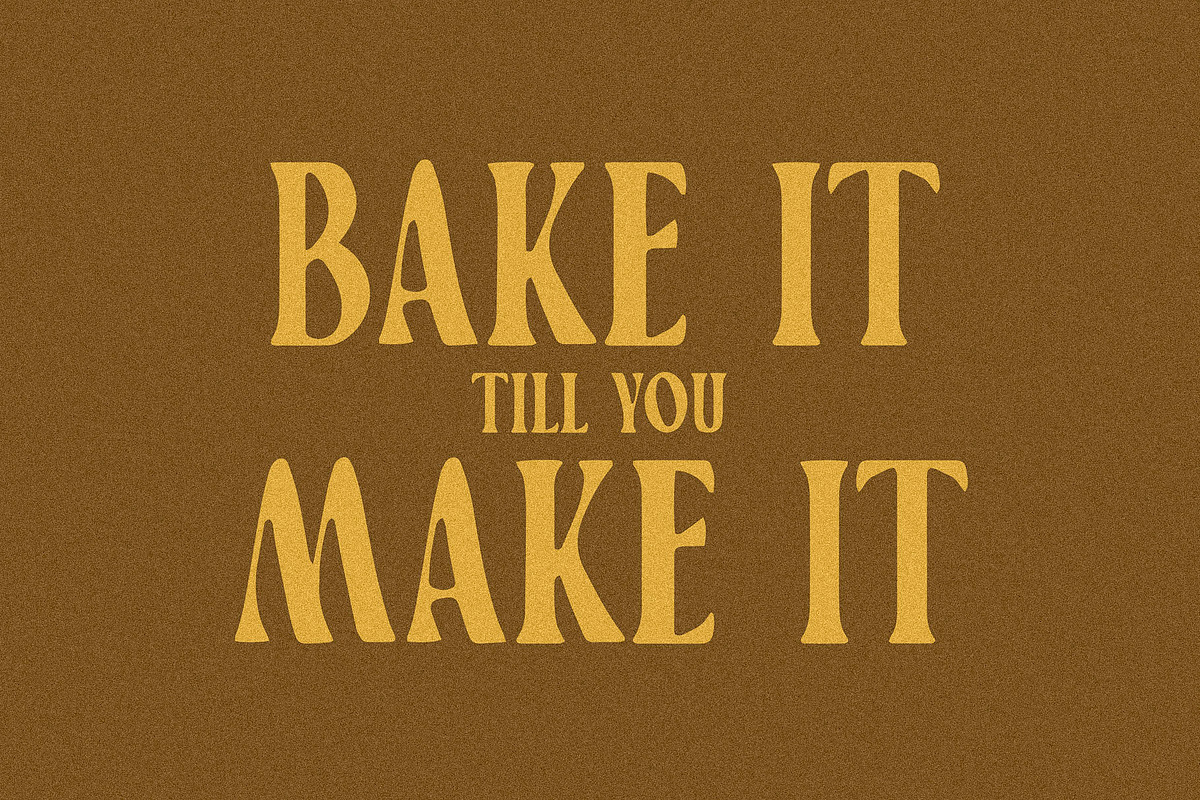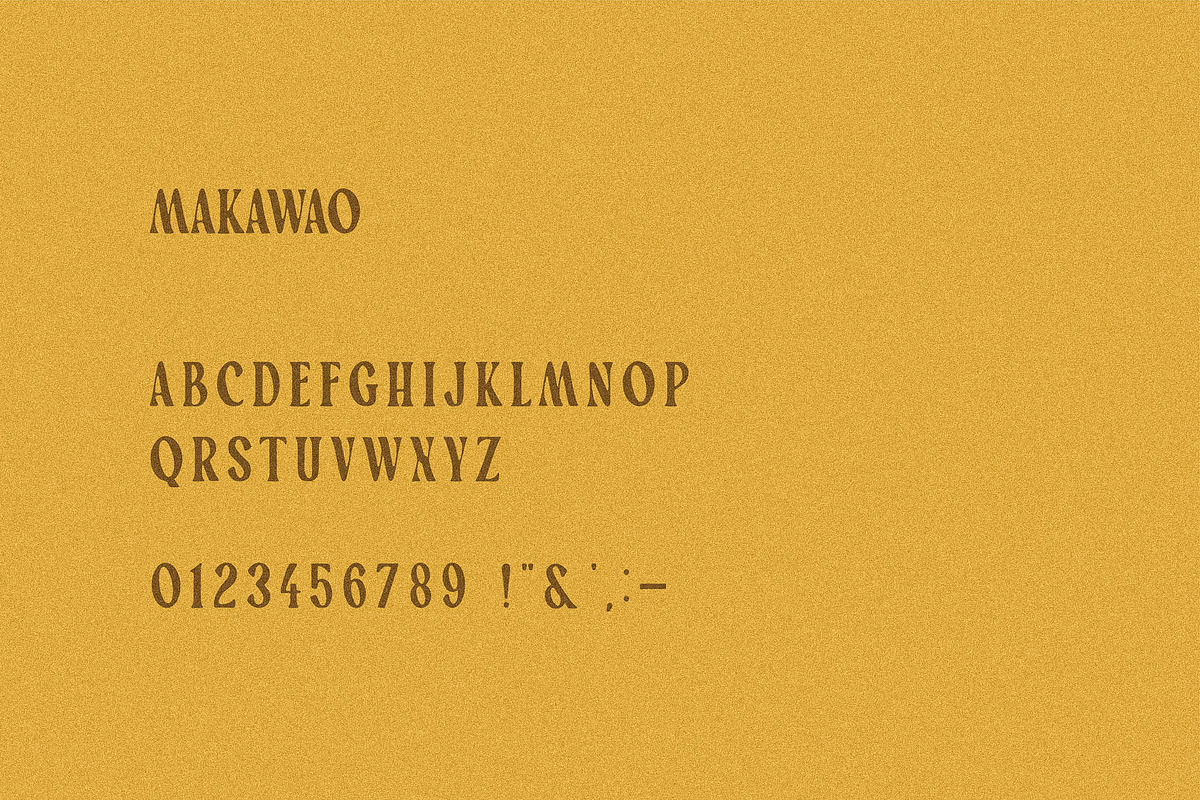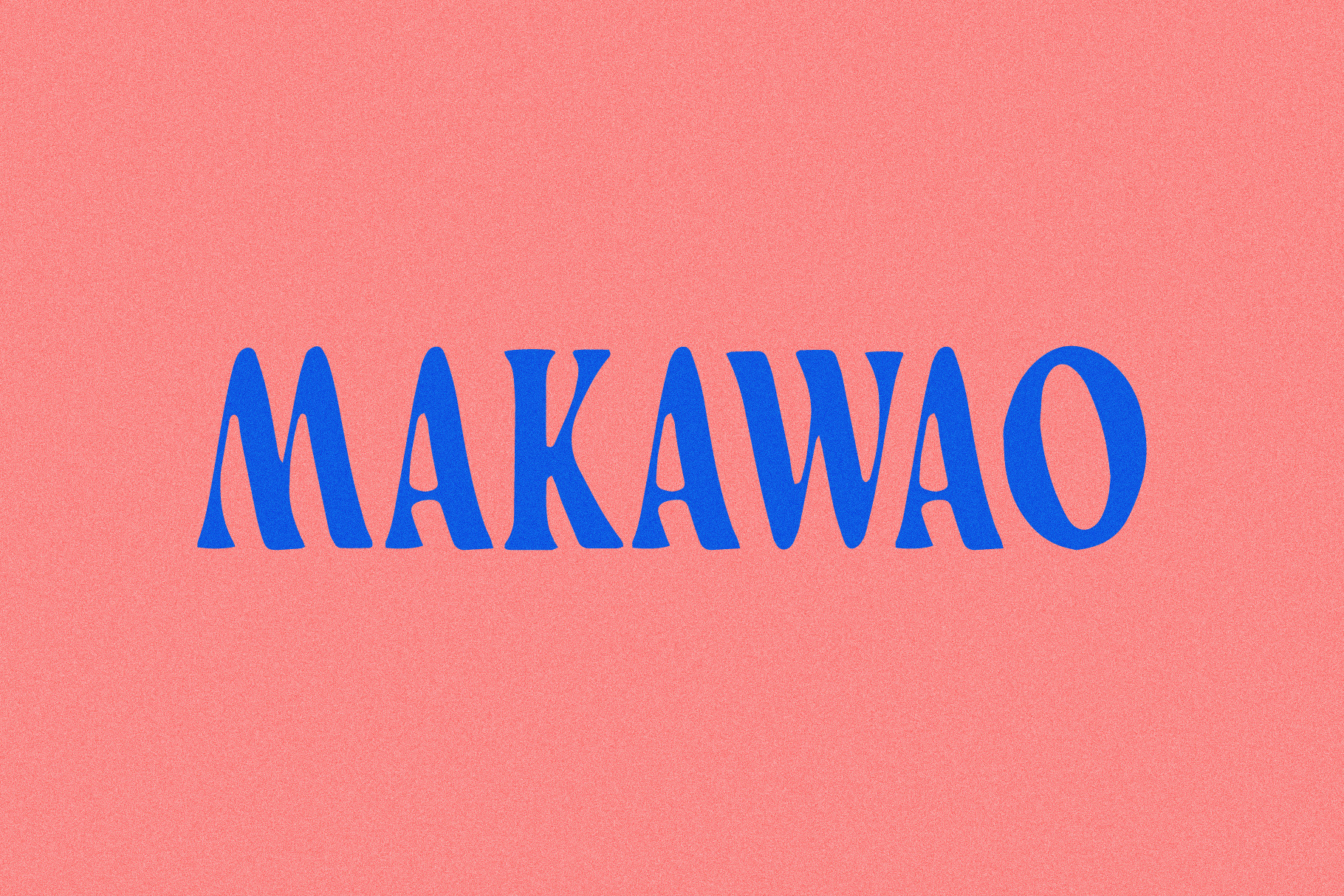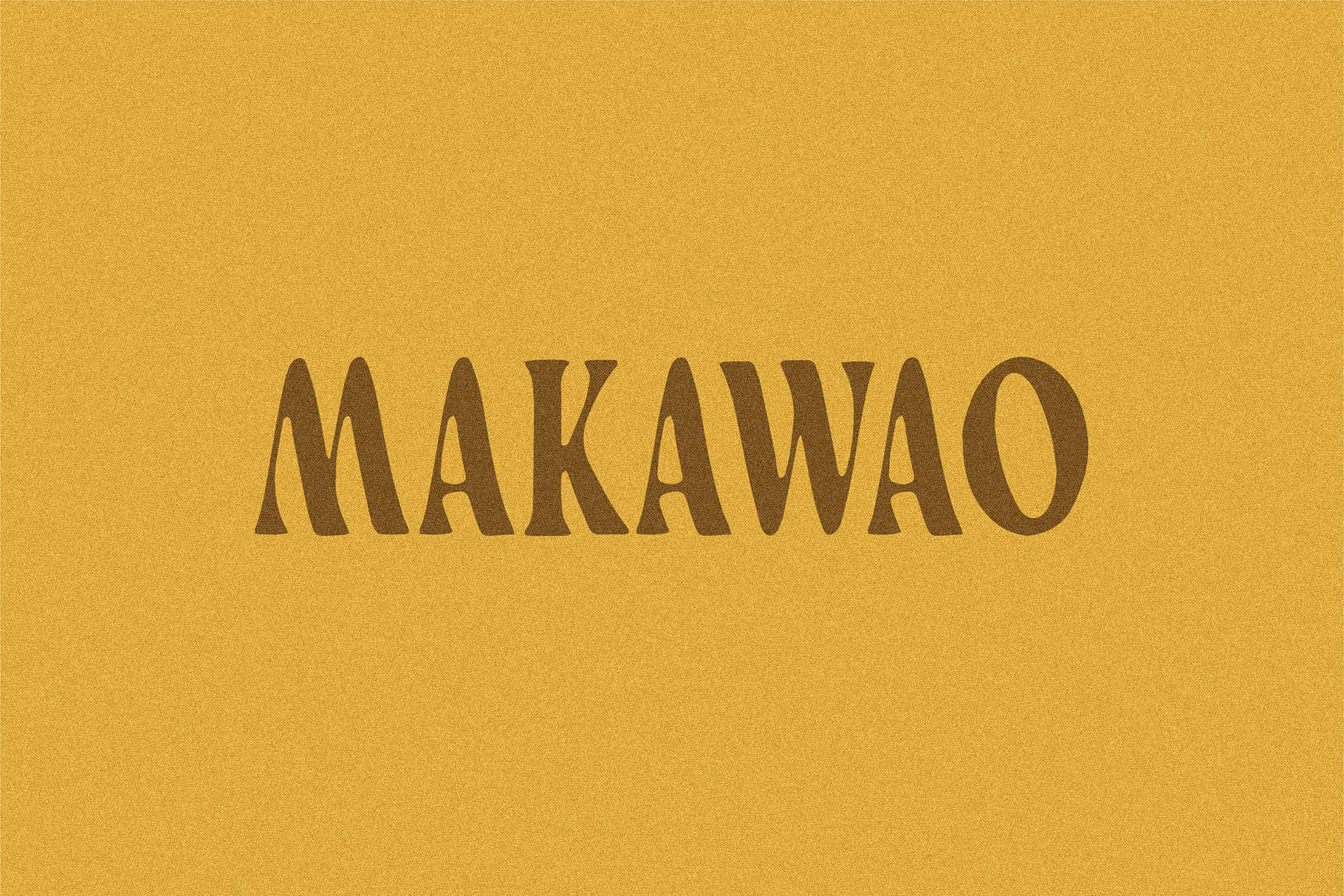
Makawao I A Soft Modern Serif Font
A slightly tropical display font with nothing to prove.
Makawao is smooth, relaxed, and doesn’t mind taking the long way. Use it when you want things to feel warm, easy, and a little less corporate.
Basic Latin support with a limited set of accented characters.